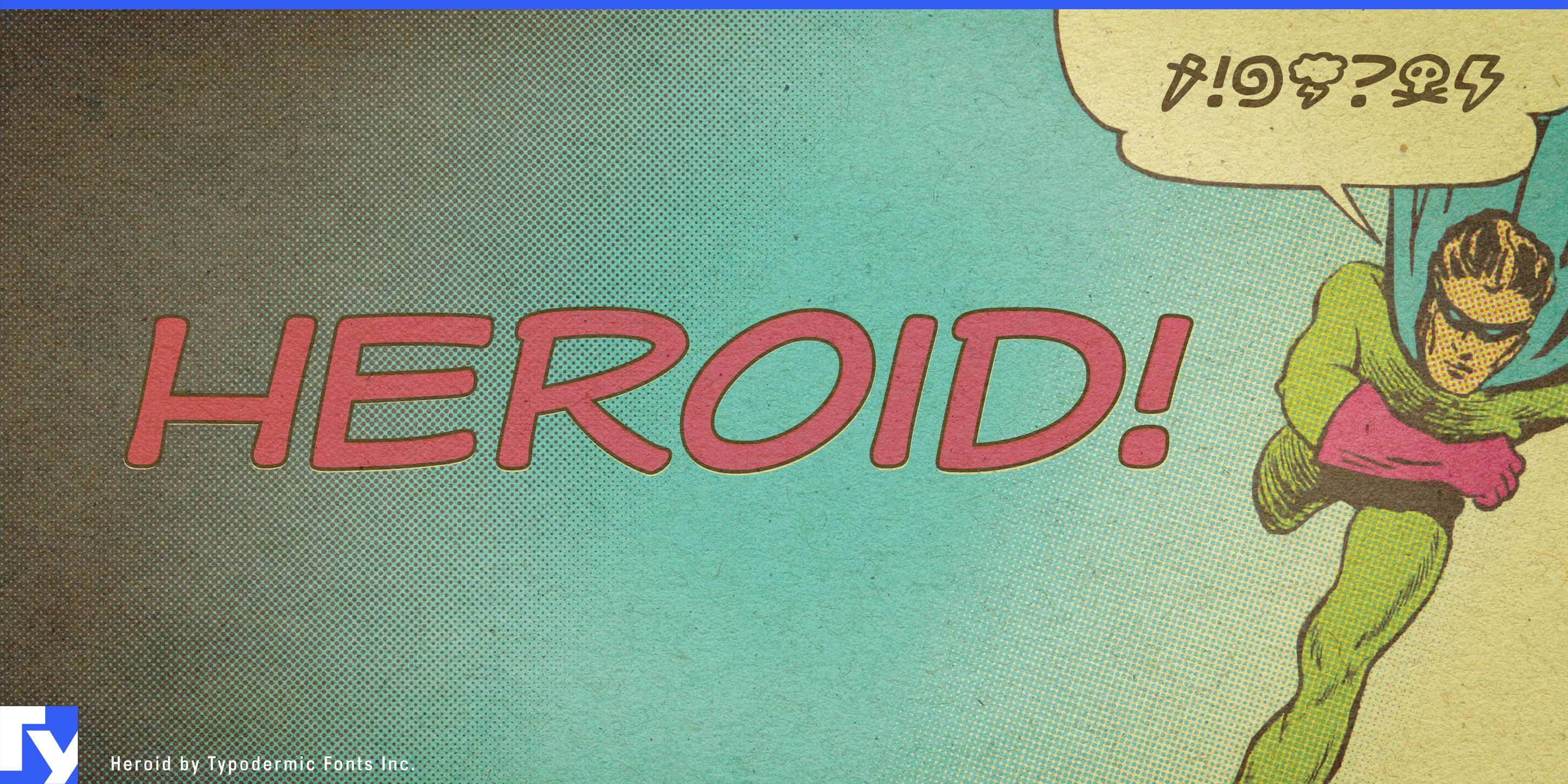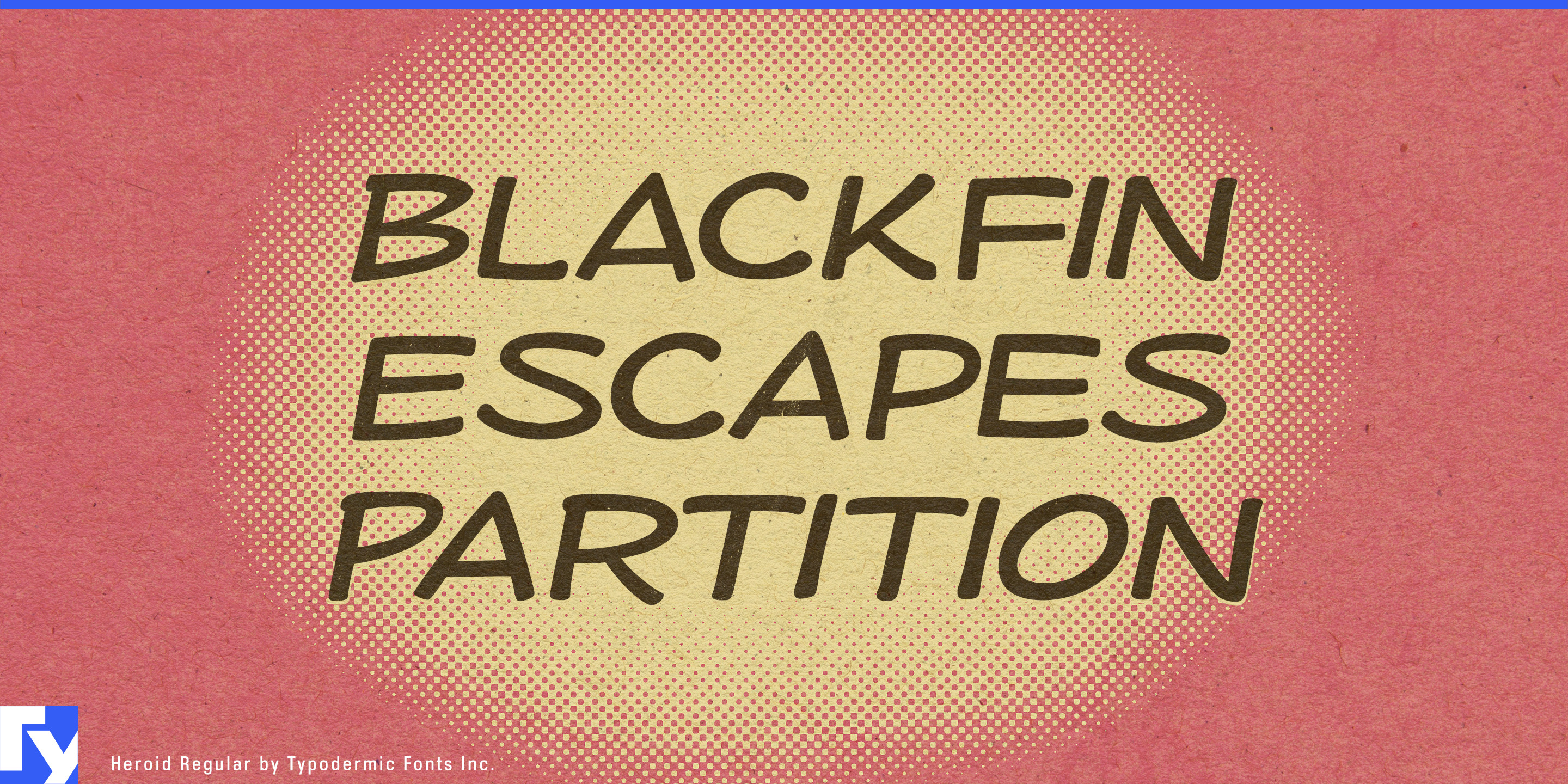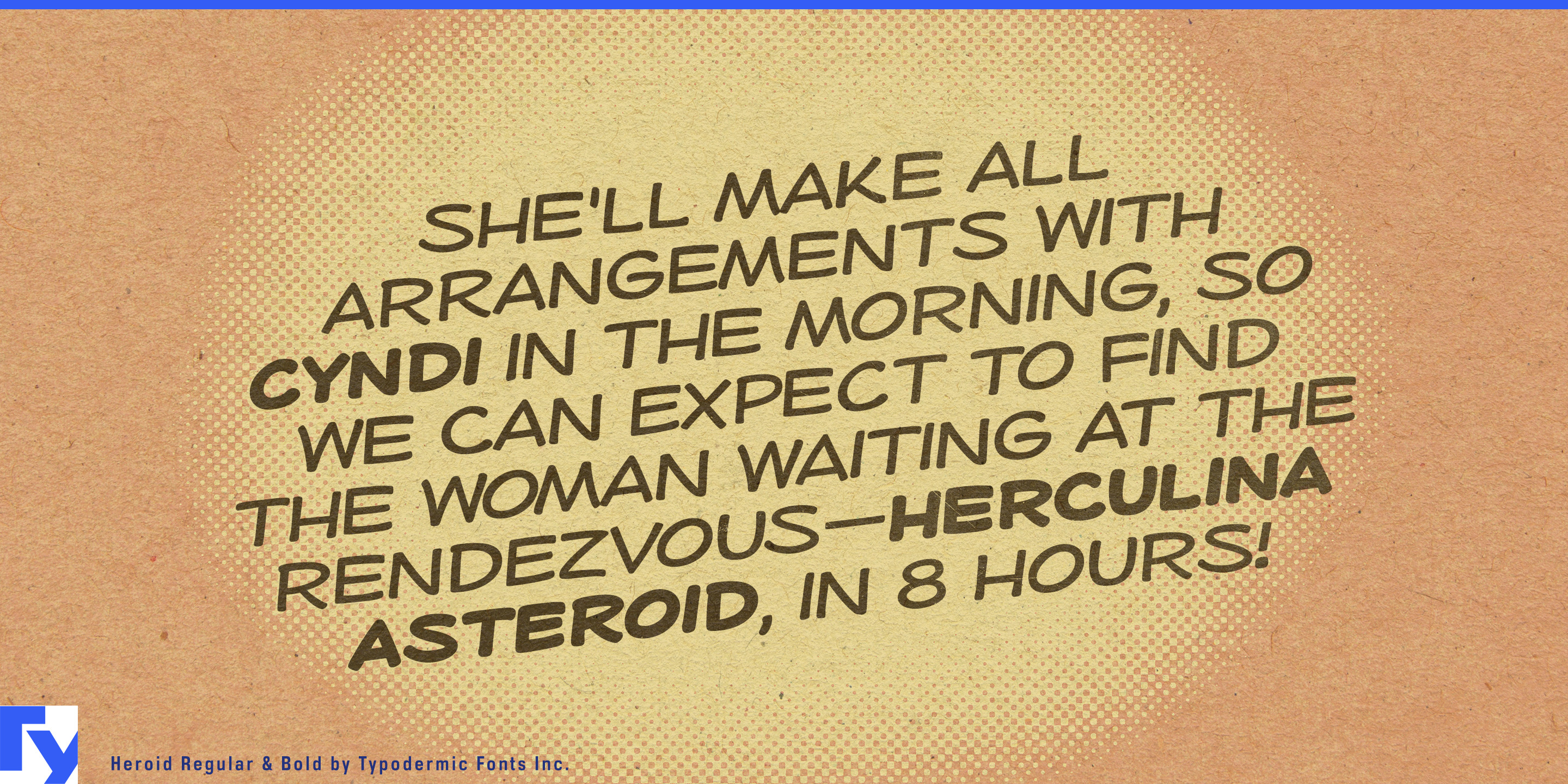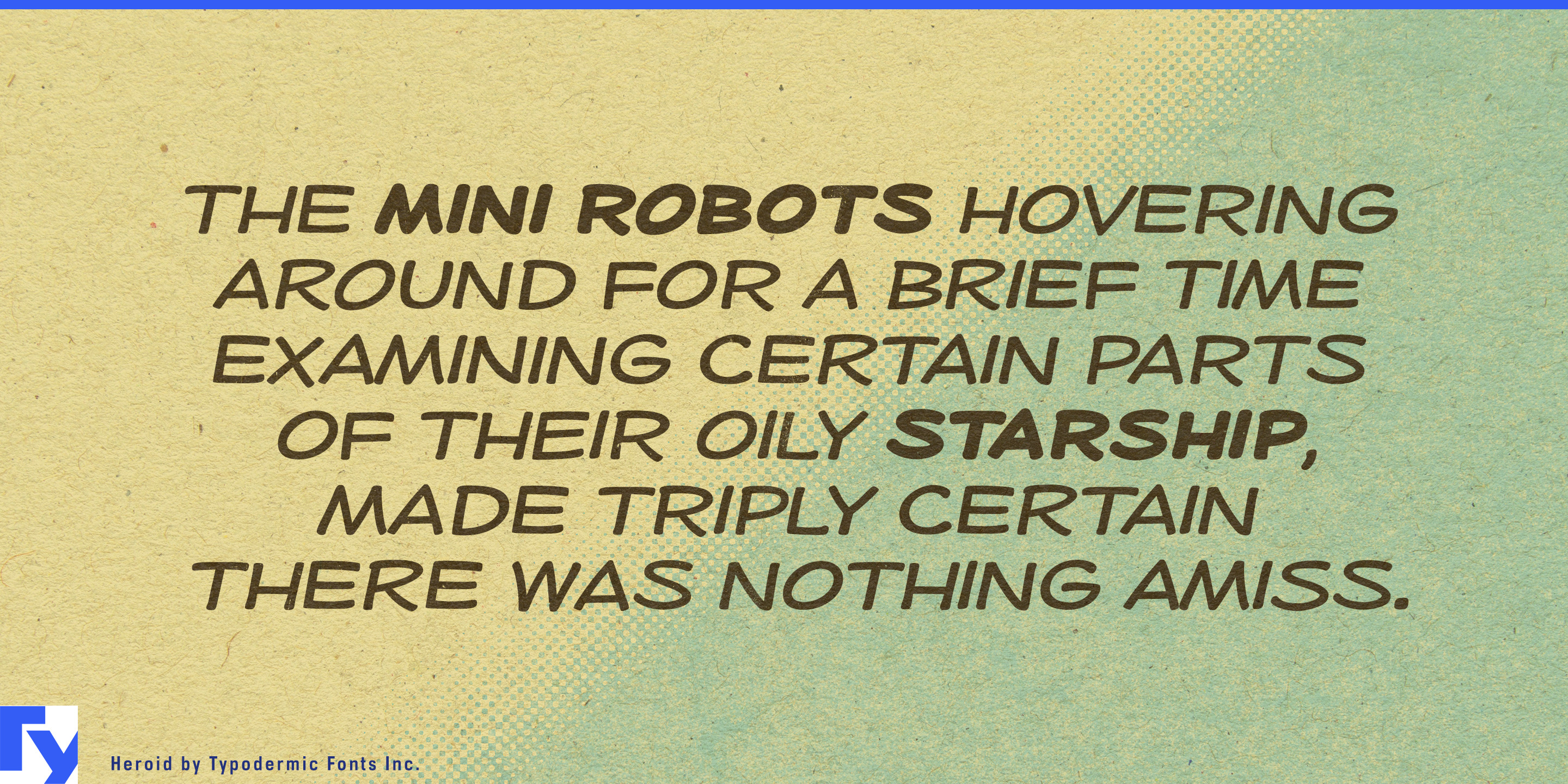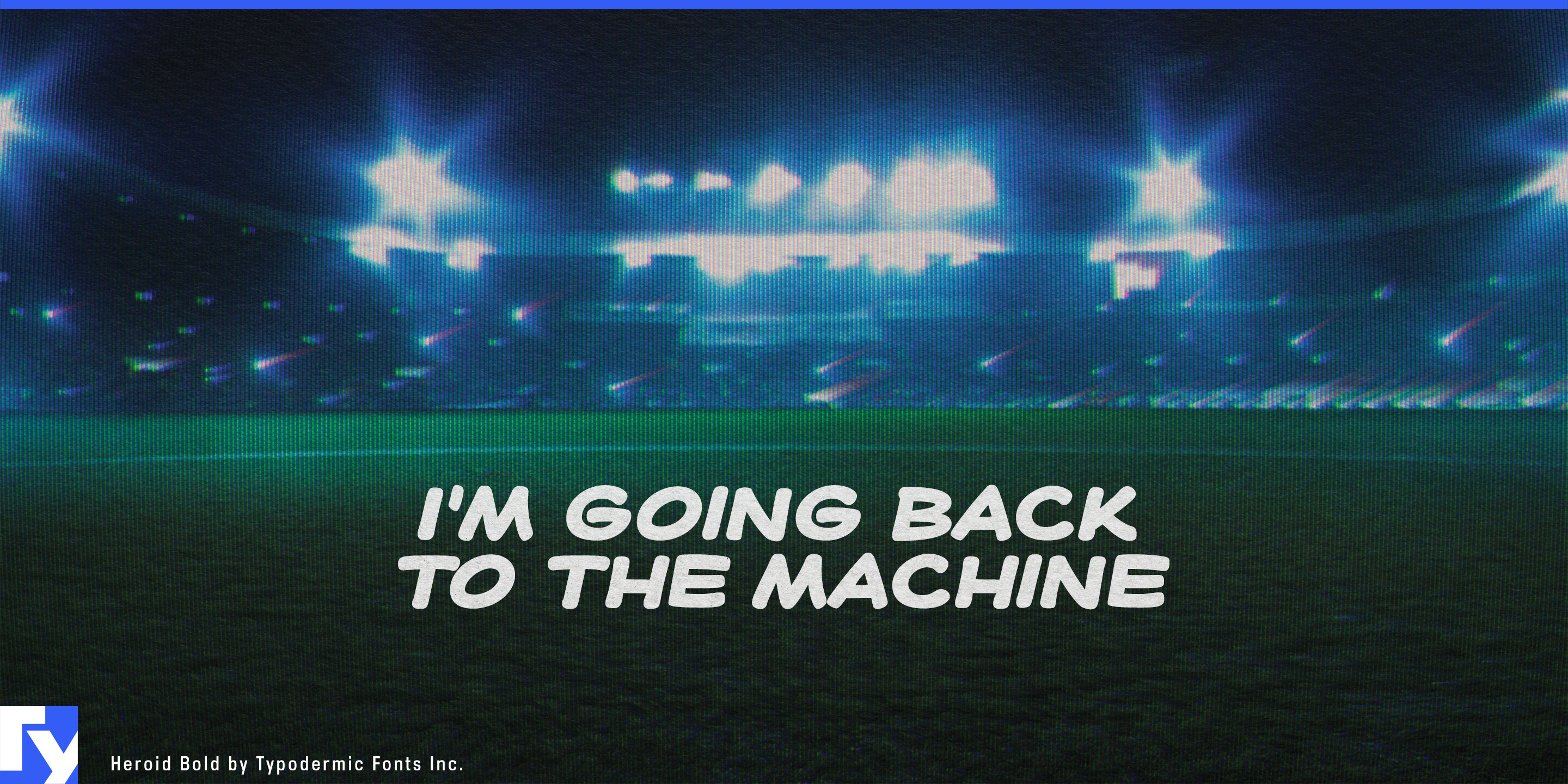
Heroid
Heroid is comic lettering for projects that extend beyond the comic book. Its forms draw on the mainstream superhero lettering of the 1970s: compact all-caps construction, lively curves, emphatic bolds, and enough irregularity to suggest lettering rather than ordinary typesetting. Alternate capitals help repeated letters avoid the mechanical patterns that can make digital comic text look obviously duplicated.
Its strength is sustained comic-style communication rather than a single explosive headline. Heroid can carry narration, dialogue, character introductions, captions, pull quotes, and short explanatory copy, while heavier emphasis can punctuate words and phrases in the familiar rhythm of traditional comic dialogue.
That makes it useful for licensed entertainment and collector merchandise: anniversary editions, character retrospectives, trading cards, collector boxes, convention displays, apparel graphics, and promotional panels that need one recognizable comic voice across many assets. Games can use the same system for mission recaps, dialogue boxes, card text, character introductions, achievement screens, tutorials, and comic-panel interludes.
Museum exhibitions, documentaries, retrospective books, anniversary websites, and convention installations can use Heroid for timelines, quotations, chapter headings, recreated dialogue, and contextual copy. Advertising campaigns can push the language further through sequential-art storytelling across packaging, outdoor graphics, retail displays, and social media.
Heroid occupies the quieter infrastructure of comic typography: the dialogue, narration, emphasis, and secondary information that make a comic-style design system hold together after the big sound effect has done its job.